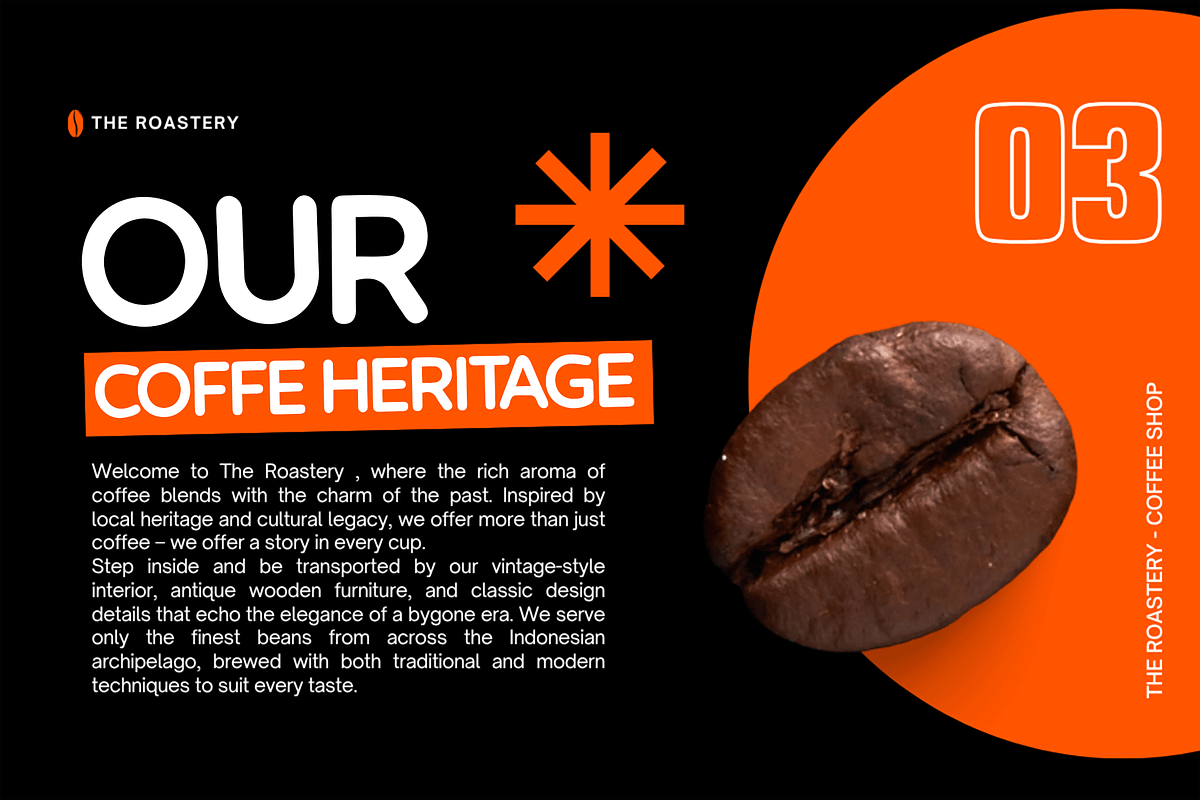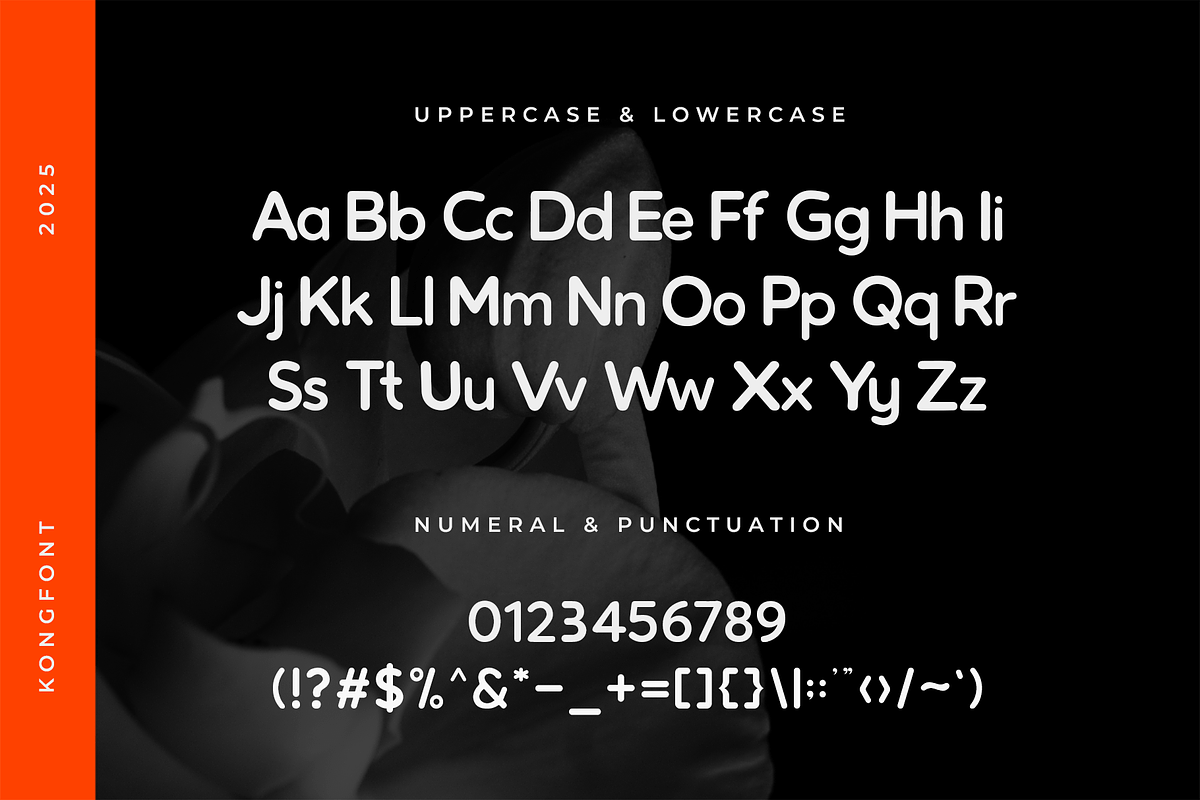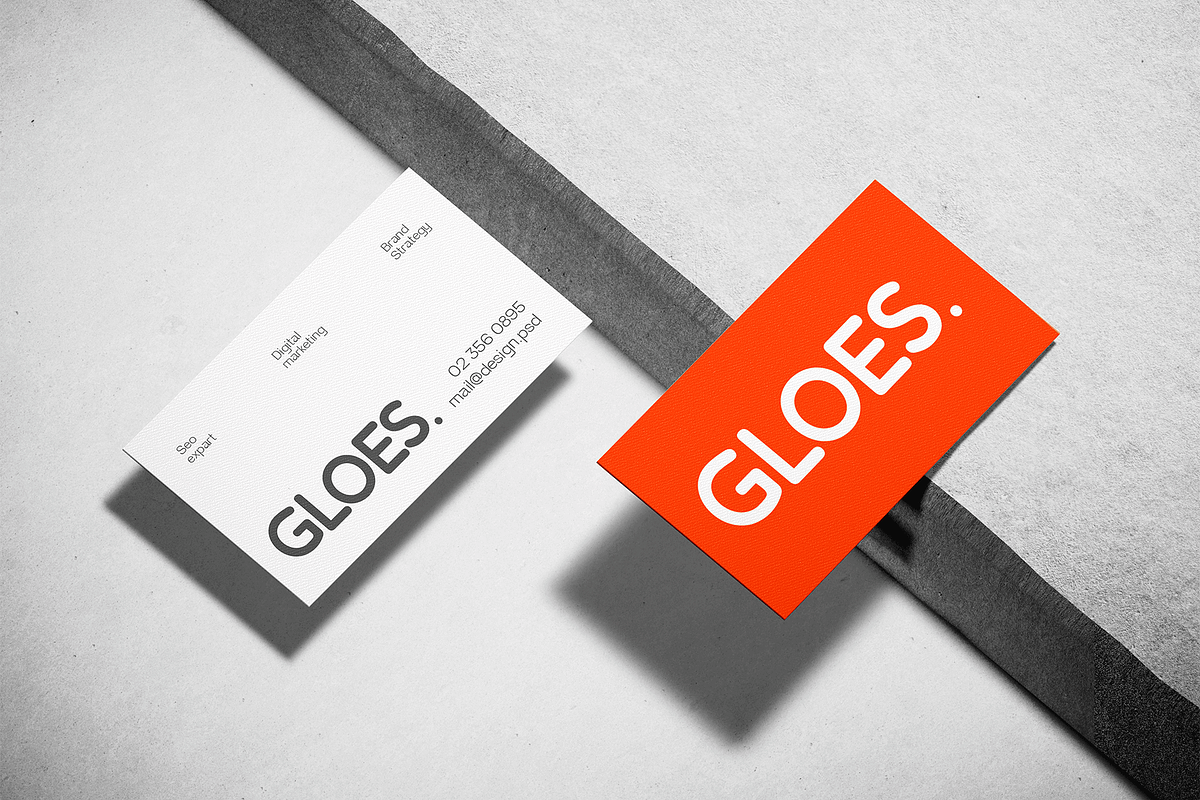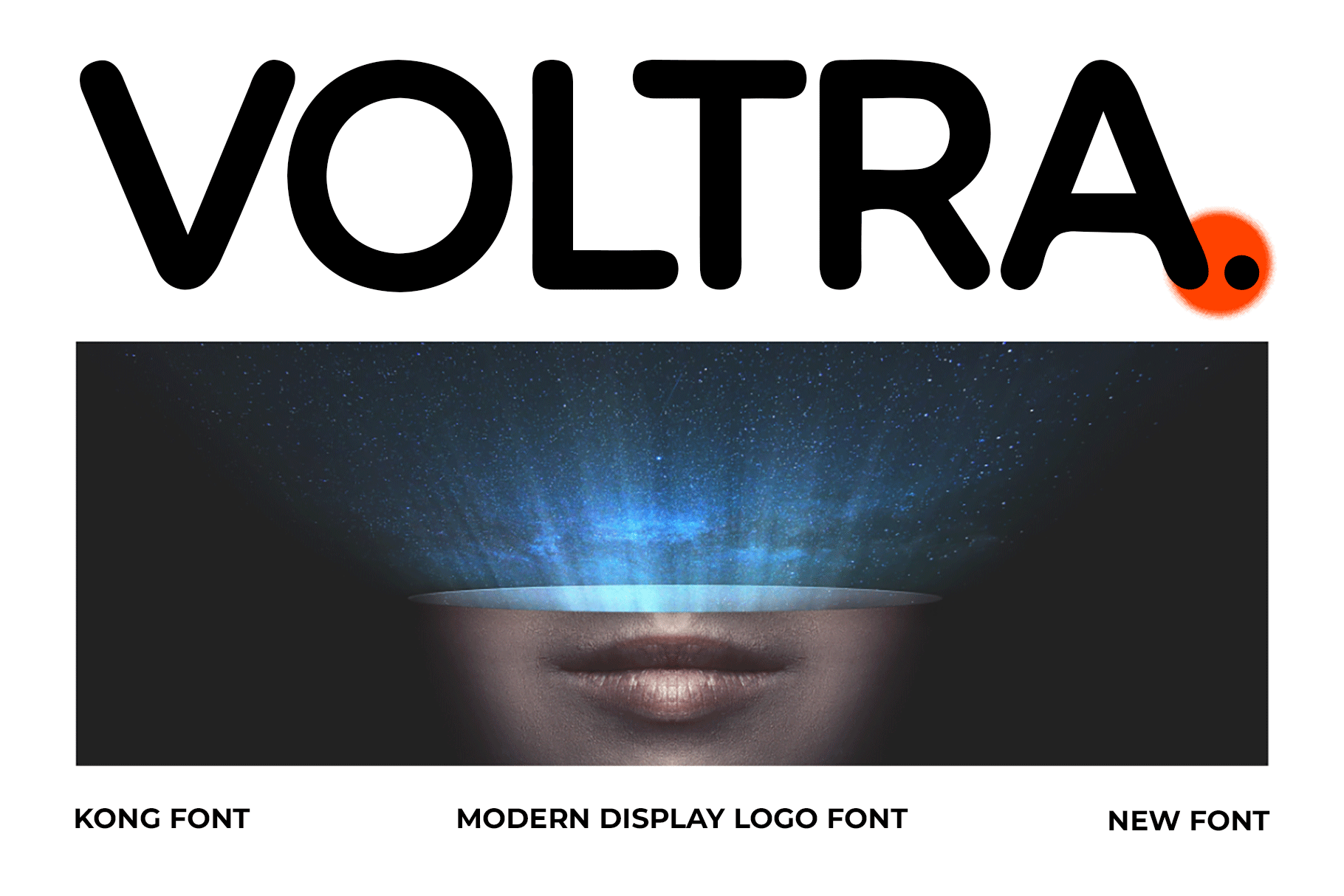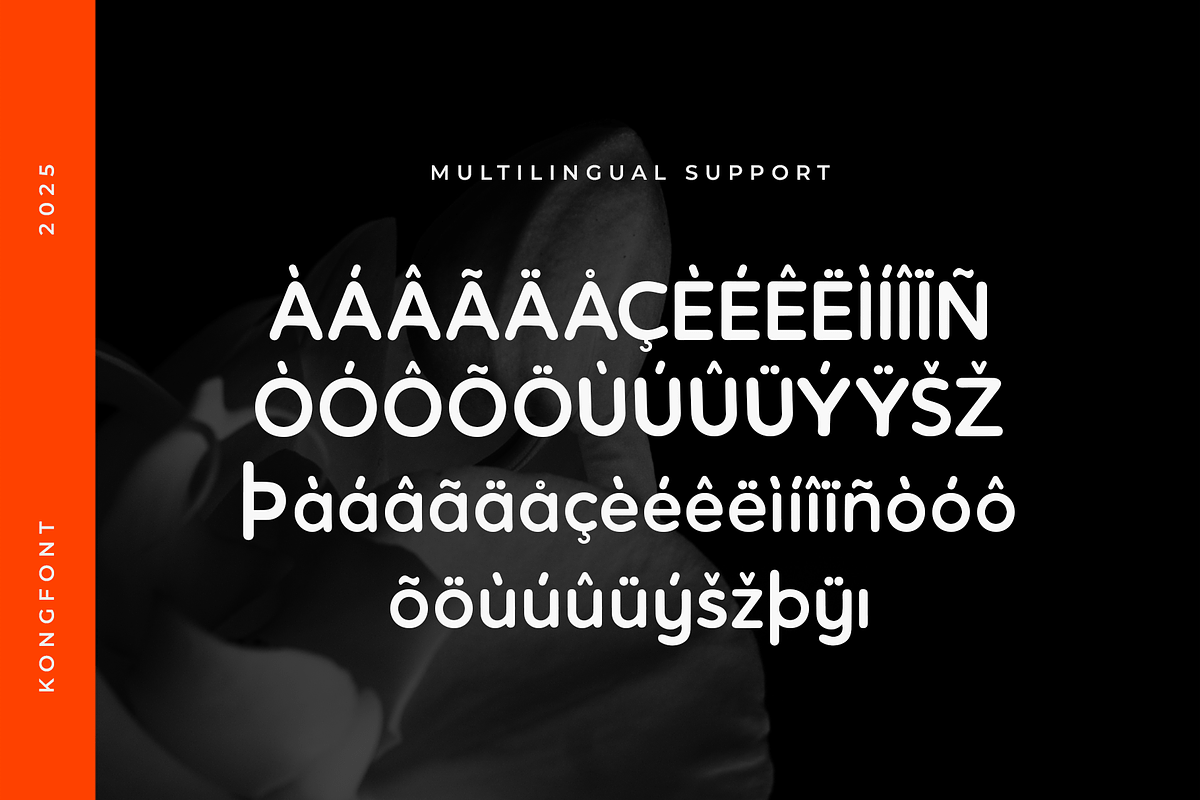
Voltra – A Modern Display Logo Font
Voltra is a modern display logo font designed for bold visual impact. With sharp edges, clean lines, and a futuristic yet minimalist structure, Voltra brings a strong and confident personality to your branding projects.
Crafted for designers who need a typeface that stands out, Voltra is ideal for logos, branding, tech startups, product packaging, digital media, and editorial headlines. Its sleek and structured letterforms give off a contemporary edge, making it perfect for projects that require both innovation and professionalism.
Whether you're building a fashion brand, a technology identity, or a modern editorial layout, Voltra delivers clarity, power, and unmistakable style in every letter.